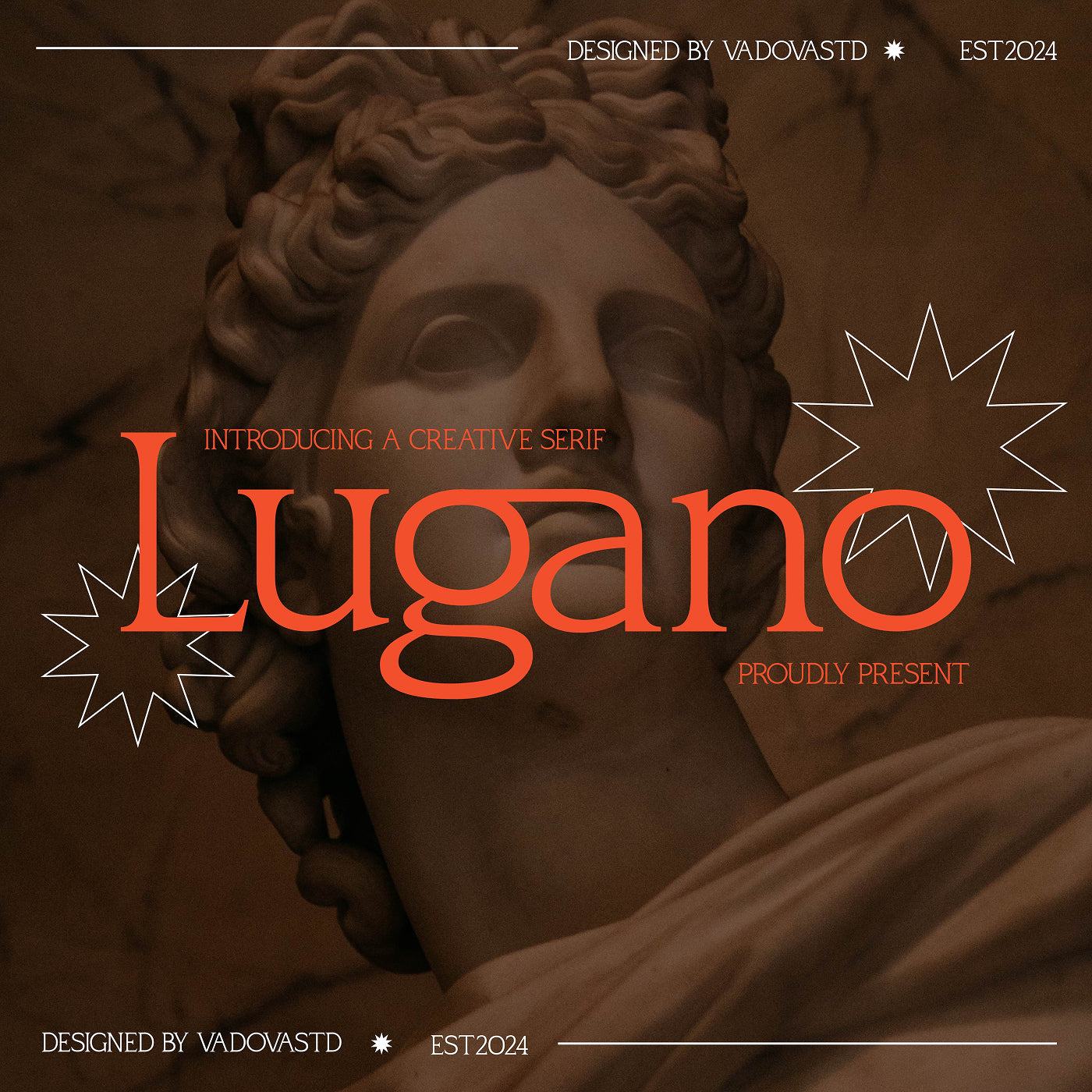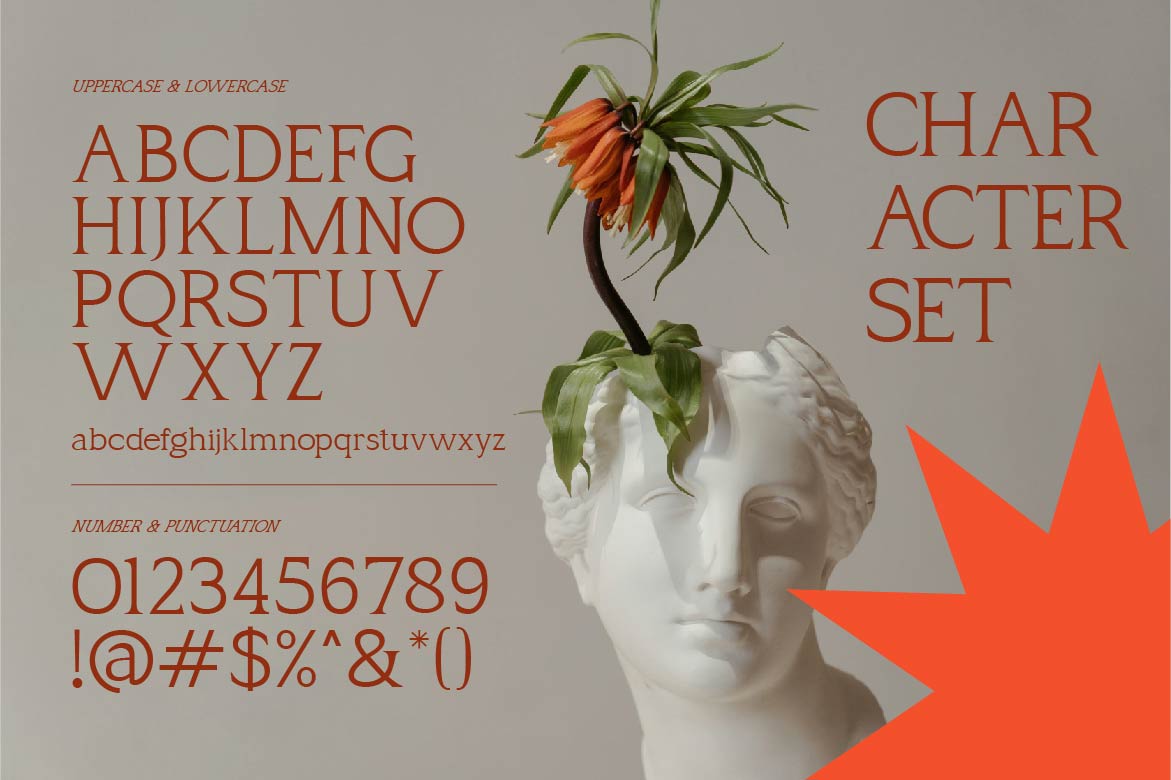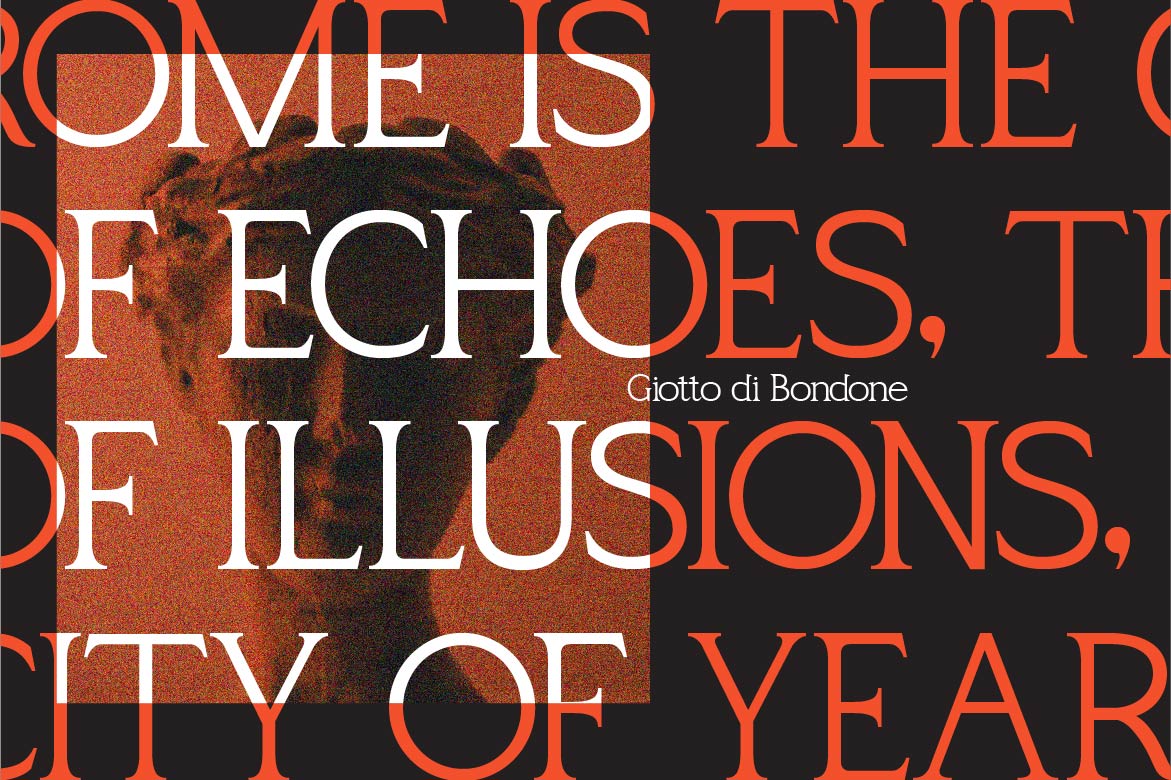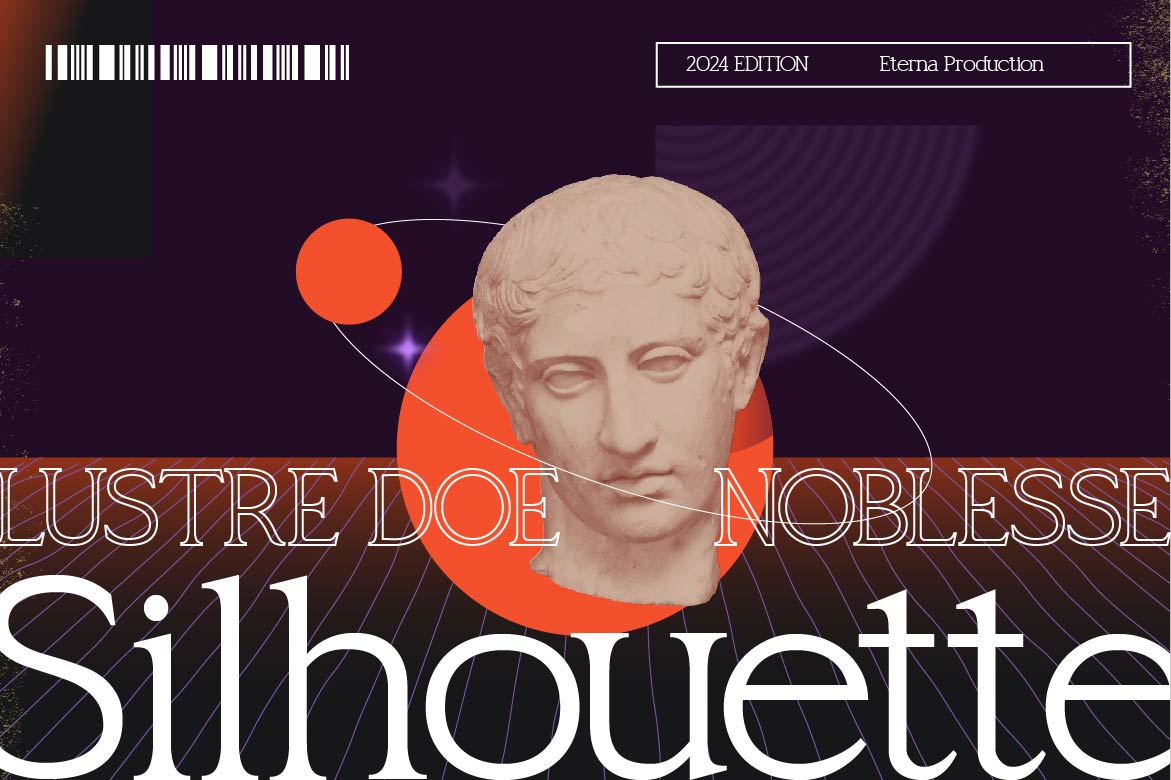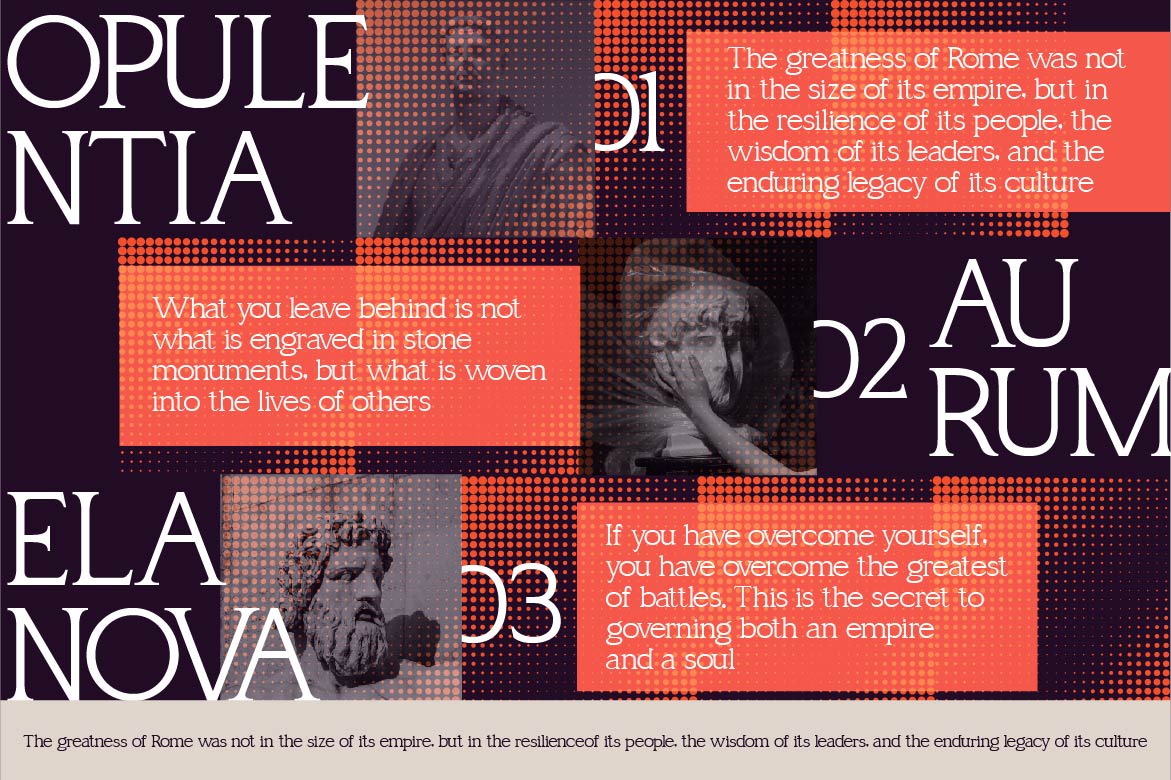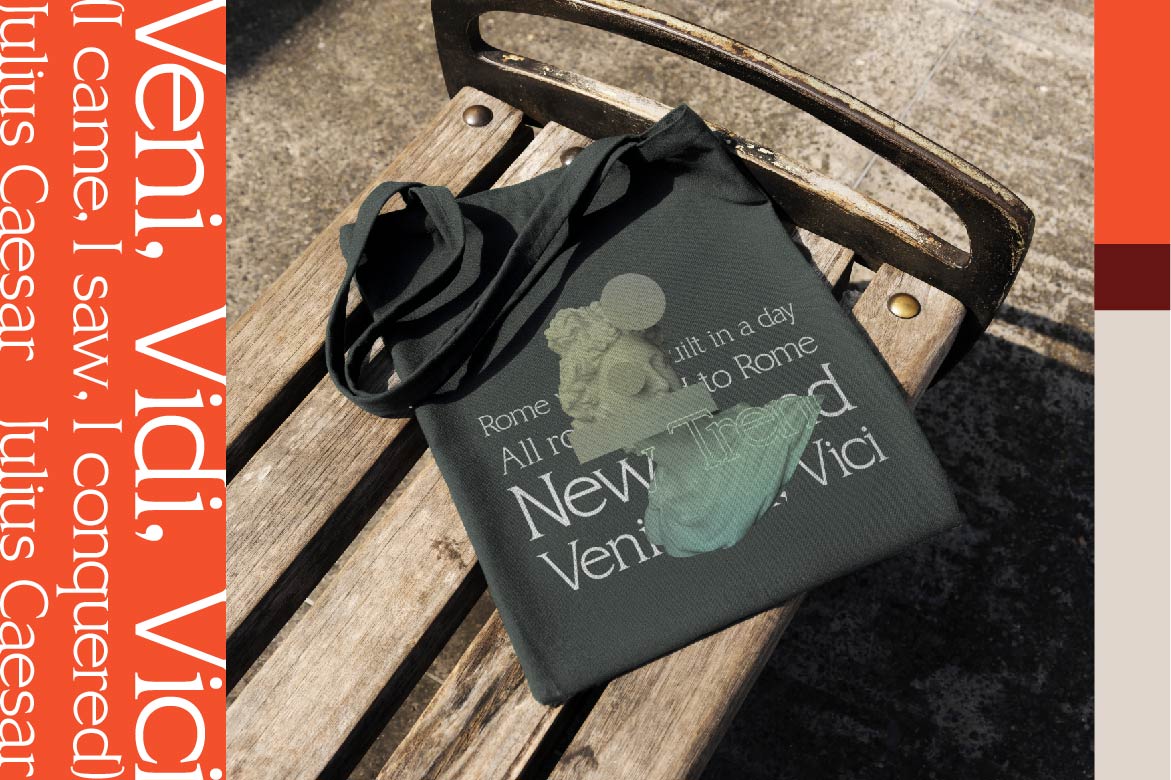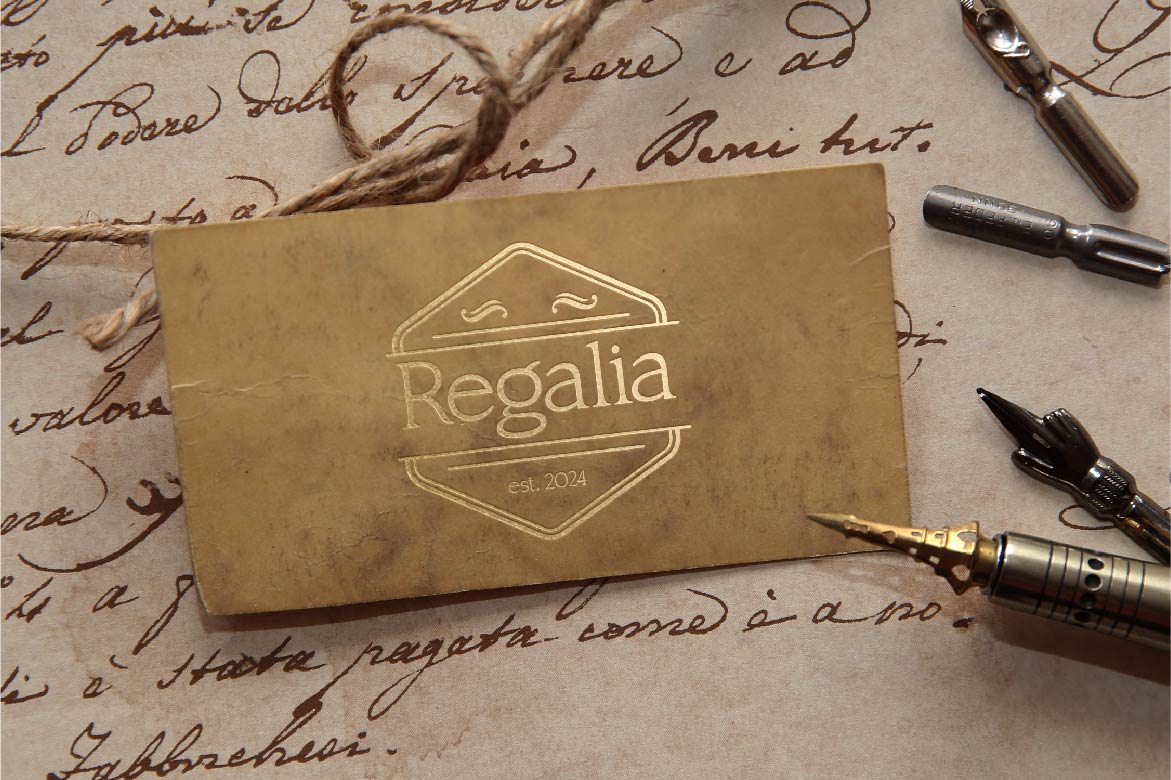
Lugano Creative Serif Font
Lugano is a modern serif typeface with elegant proportions and refined curves inspired by classical sculpture and editorial aesthetics. It features strong contrast, smooth ligatures, and a balanced structure that delivers a luxurious and sophisticated visual tone. The letterforms feel timeless yet contemporary, making the font stand out in high-end branding and display compositions. Lugano is crafted to express confidence, elegance, and premium character in every word.
Lugano Creative Serif Font is a modern serif typeface featuring elegant proportions, strong contrast, and smooth ligatures. It is available in TTF, OTF, and WOFF formats, includes uppercase and lowercase characters, as well as numerals and punctuation.